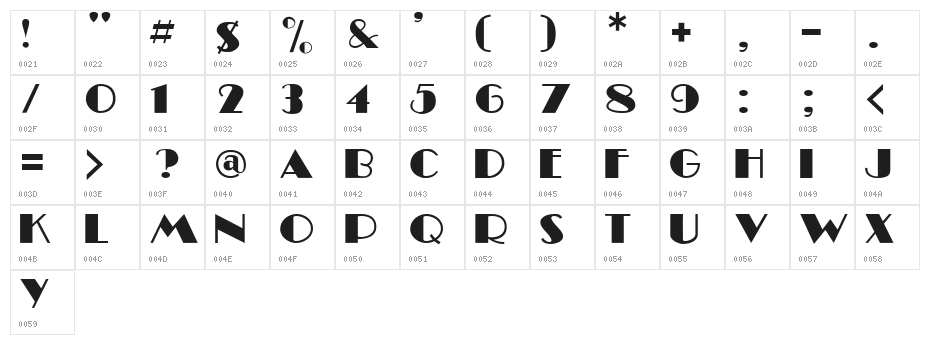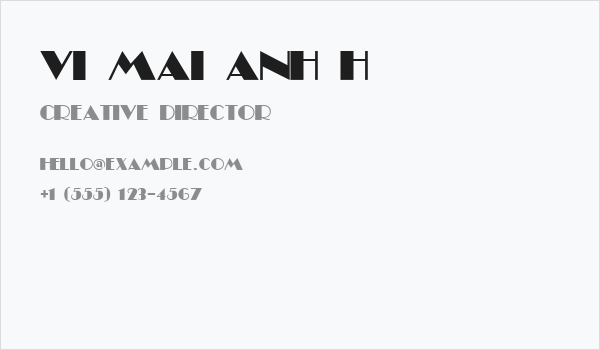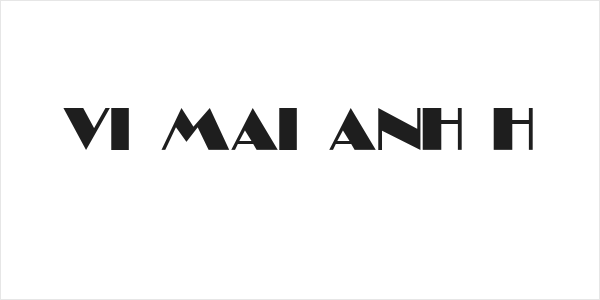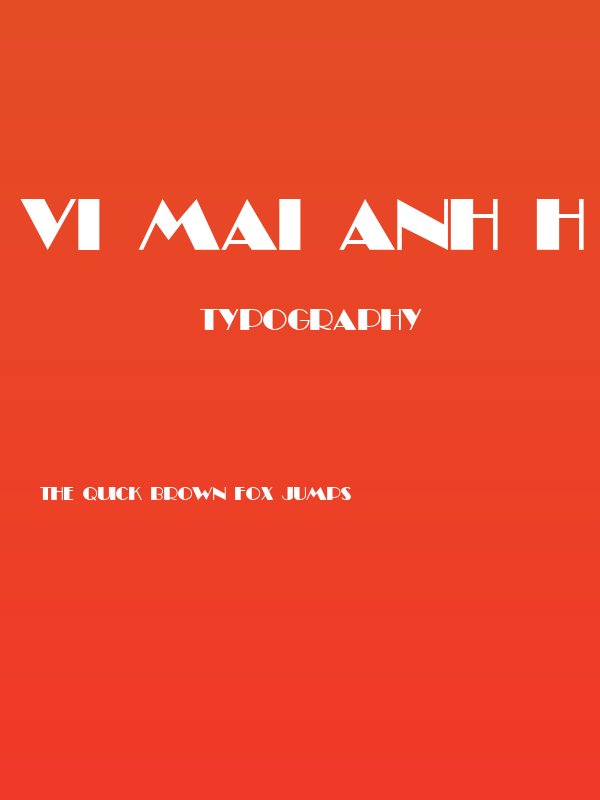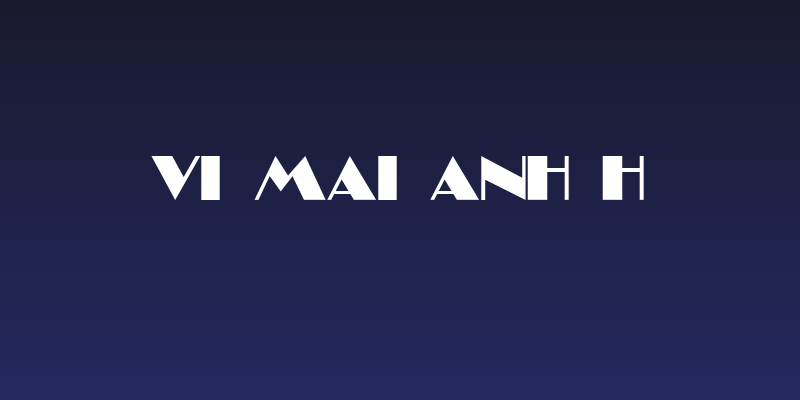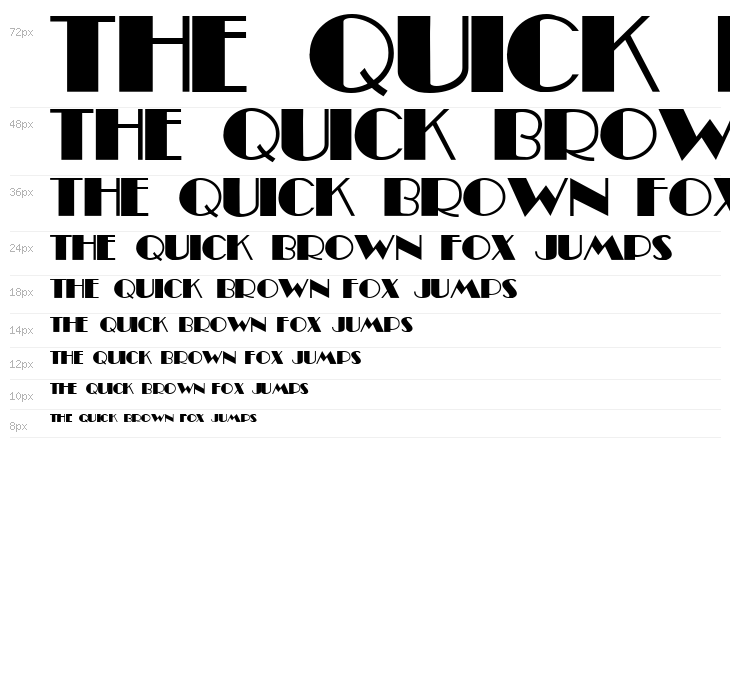
VI Mai Anh H Font
VI Mai Anh H Description
This font features a bold and geometric style with sharp angles and clean lines. The uppercase letters are characterized by their unique, angular forms, creating a sense of modernity and sophistication. The lowercase letters maintain a consistent design, complementing the uppercase with a slightly more rounded appearance. Numbers are bold and distinct, ensuring readability. Special characters are designed to match the overall aesthetic, providing a cohesive look across all elements. The font's strong visual presence makes it ideal for impactful designs.
| Proposed Projects | Ideal for branding, posters, headlines, and modern design projects. |